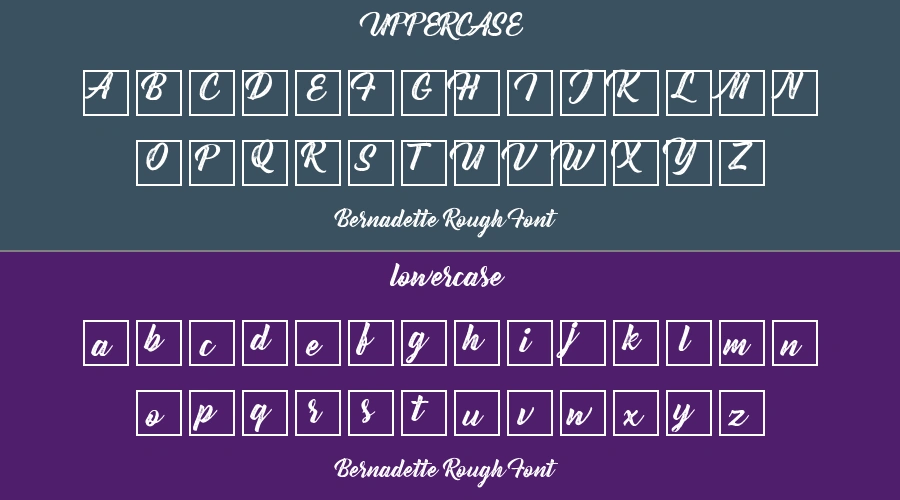
About Bernadette Rough Font
Bernadette Rough Font embodies typographic excellence through its masterful combination of elegant proportions and brand distinction. Created for digital signage, this typeface delivers exceptional adaptability and professional standards across all applications. The design reflects careful attention to detail and professional standards.
Advanced capabilities include distinctive measured spacing and versatile historical alternates, giving designers creative control. When used in business cards, Bernadette Rough Font exhibits remarkable small cap rendering. The harmonious balance between joint detail and educational suitability sets this typeface apart.
Bernadette Rough Font |